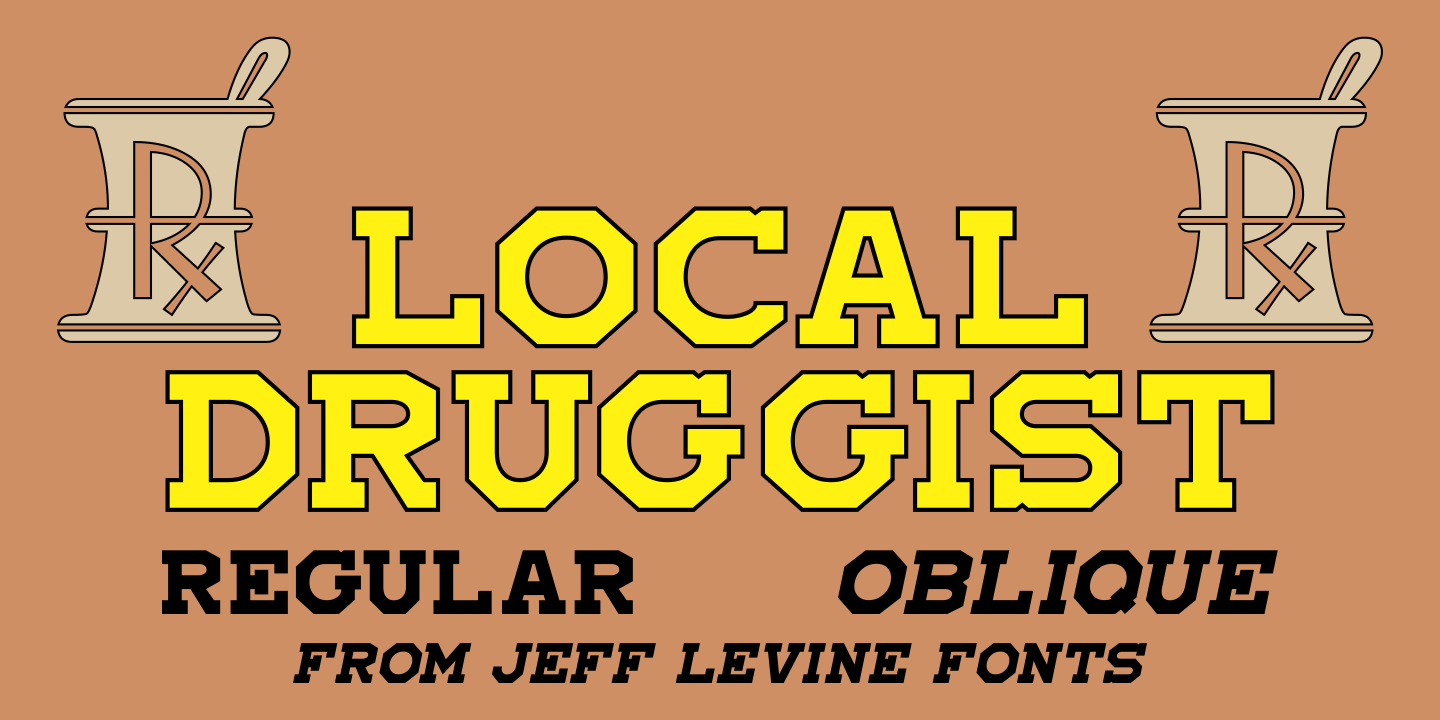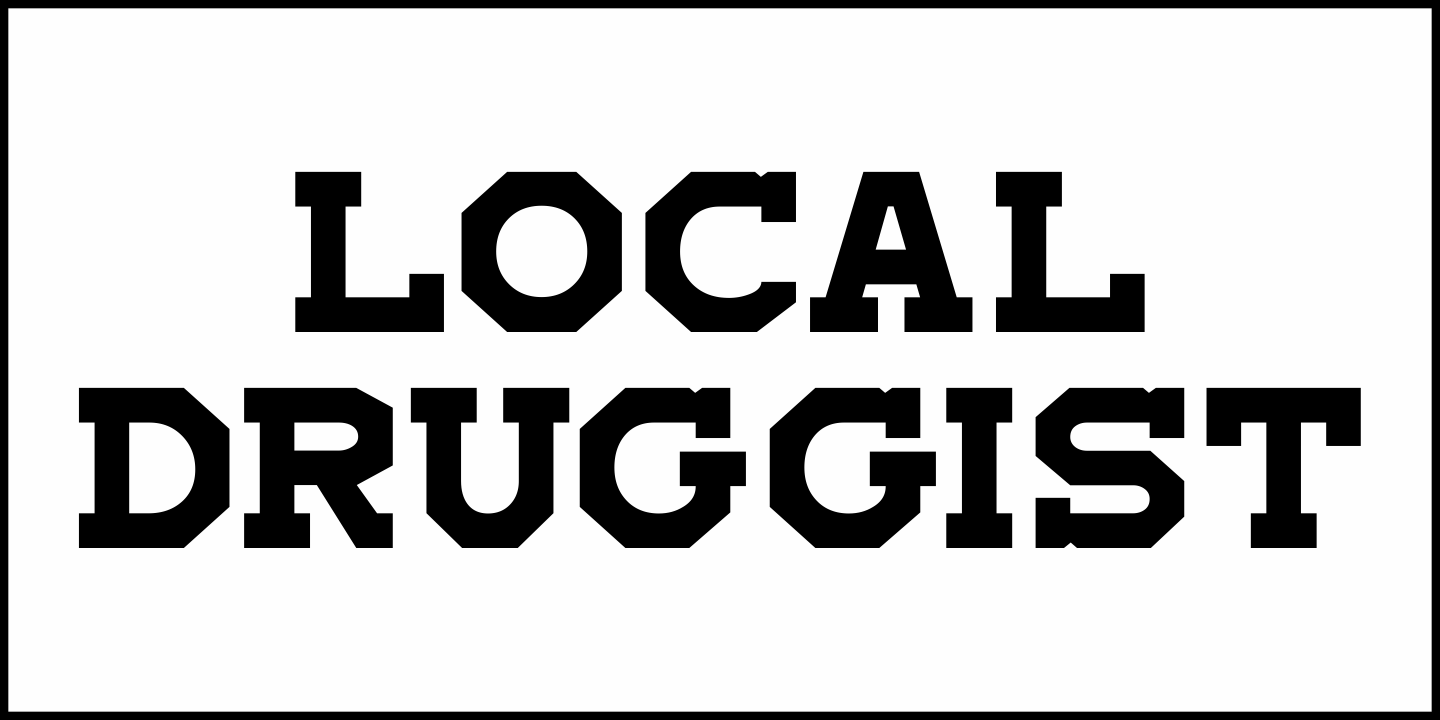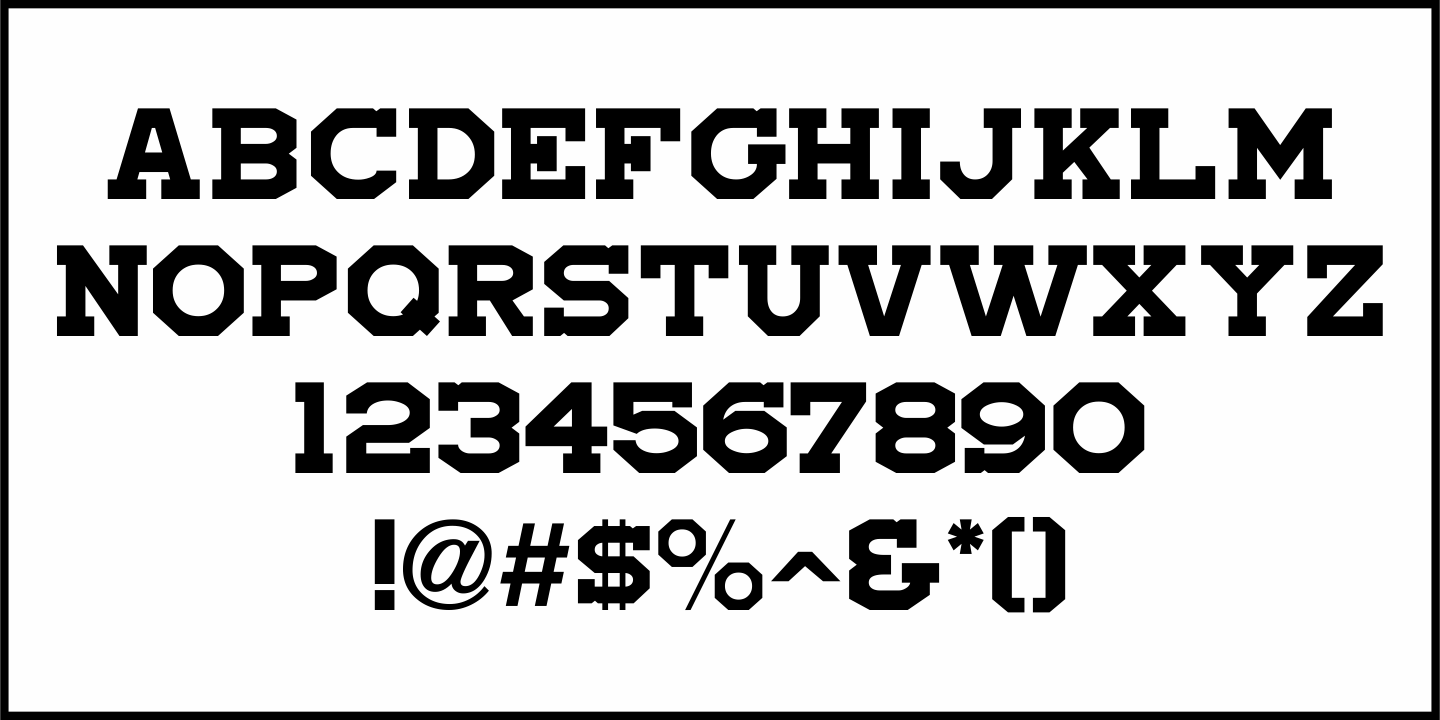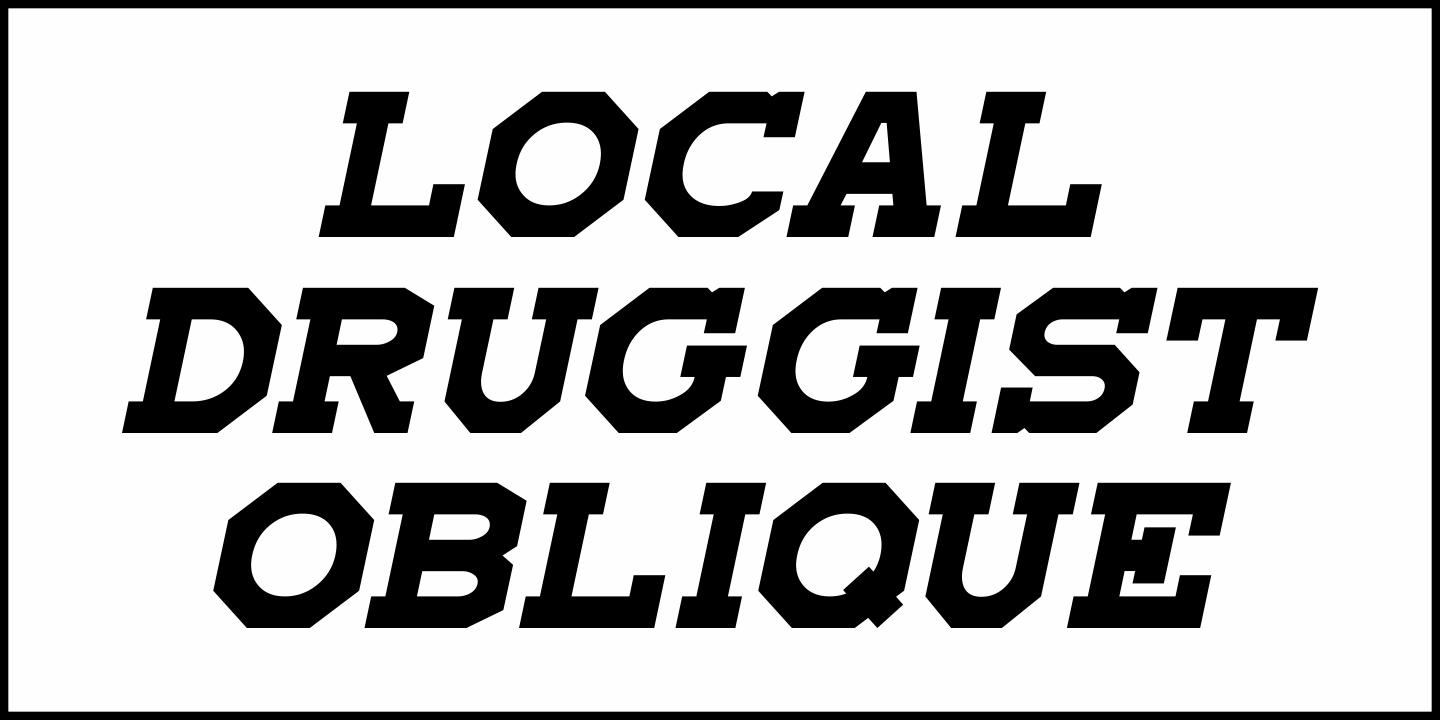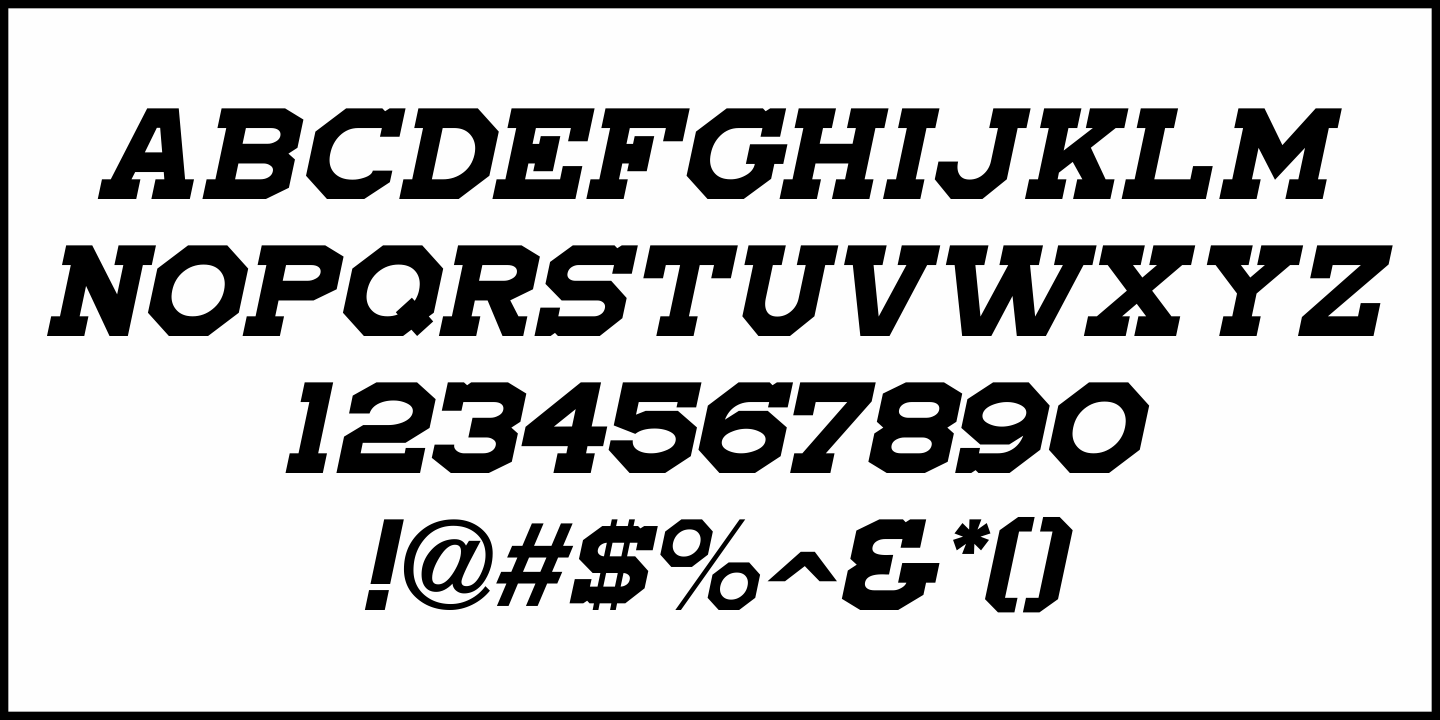
Local Druggist
Inspired by an image of the chamfered block lettering of a semi-faded 'ghost sign” for the Thomas Drug Co. in Thomas, Oklahoma, Local Druggist JNL is available in both regular and oblique versions.
'Ghost Signs” are the visible remnants of hand-painted signs on buildings where the original business had long closed or moved, yet the lettering had survived the passing years.
Local Druggist JNL Regular by Jeff Levine Fonts